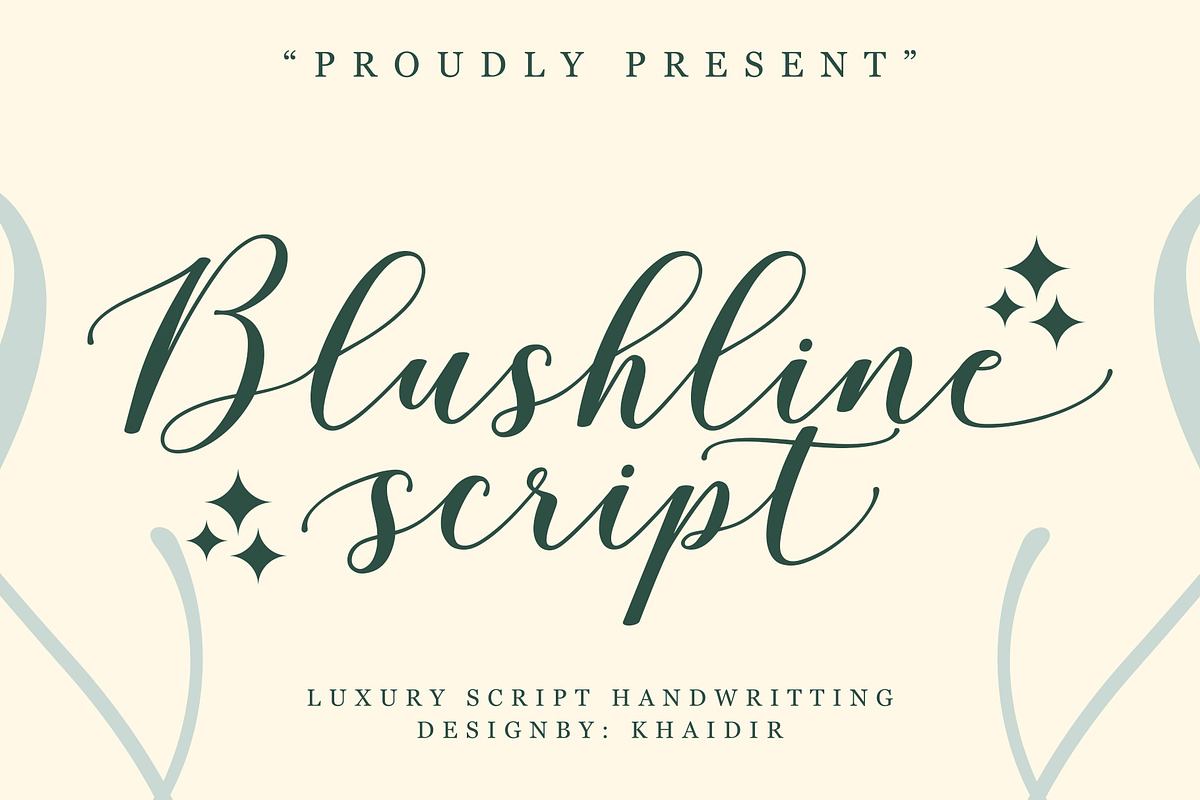
Blushline Script Font Free Download is a romantic and flowing typeface that adds a touch of elegance and femininity to any project. Please note, you are required to purchase this font for commercial use. It is available for free download for testing and personal projects only.
Designed with graceful strokes and natural hand-lettered charm, Blushline is perfect for wedding invitations, branding, greeting cards, beauty products, and lifestyle content. Its smooth curves and stylish swashes give your text a personalized, heartfelt feel.